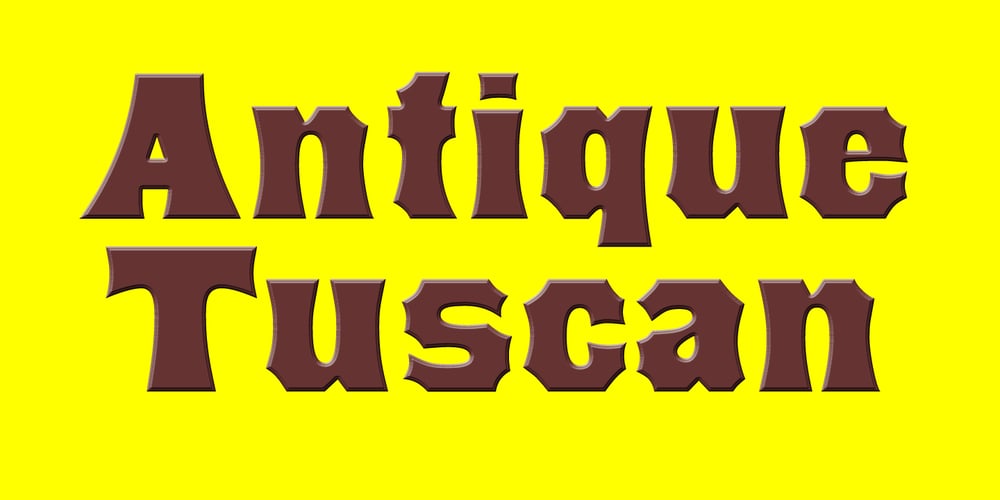
Antique Tuscan Font Family was designed by Jordan Davies and published by Wooden Type Fonts. Antique Tuscan contains 1 styles and family package options. A revival of one of the popular wooden type fonts of the 19th century, condensed, bold, curved serifs, a very useful design for display, upper and lower case.